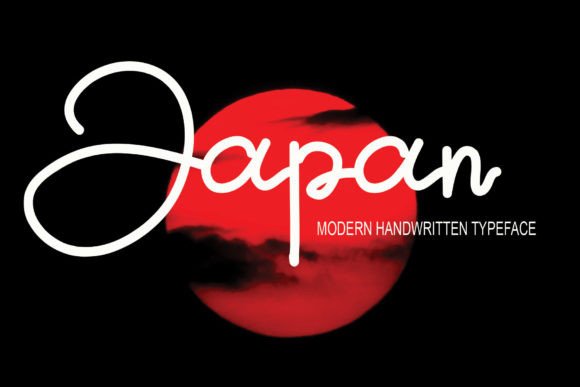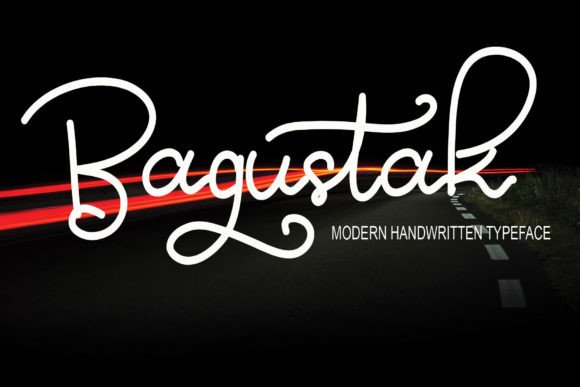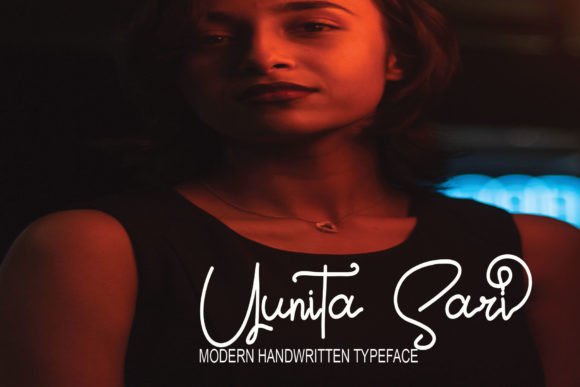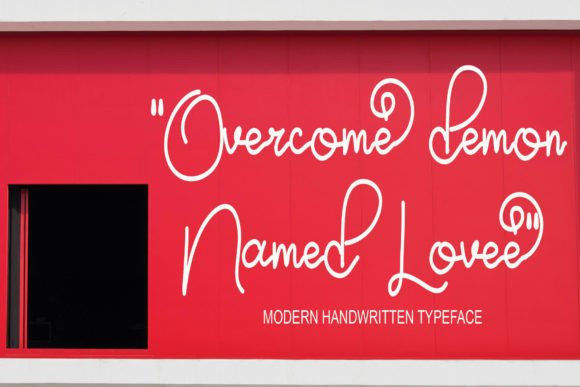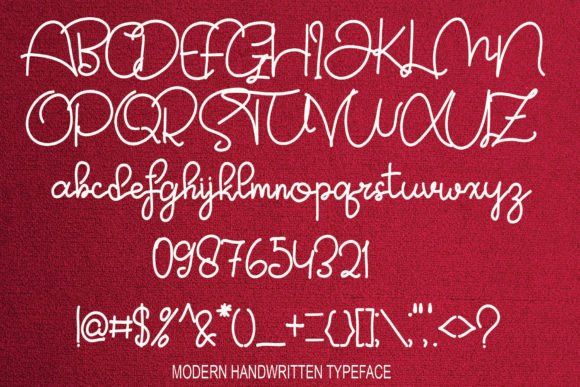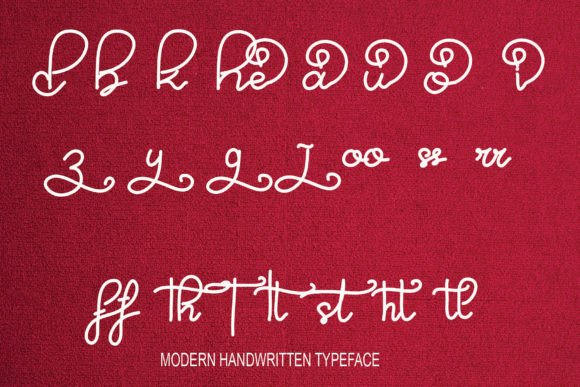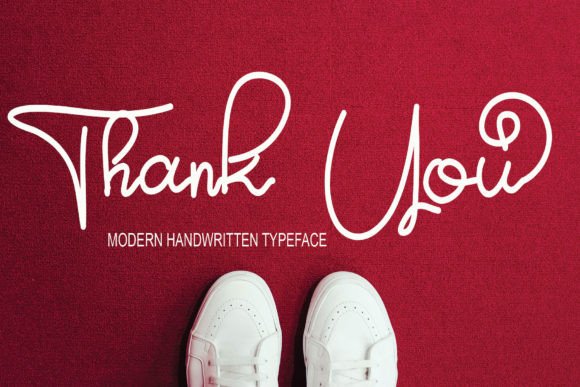
Matamu Font
About Matamu Font
“Matamu” is a script font that has been meticulously crafted by hand using a tablet. Despite its simplicity, this font exudes a sense of careful craftsmanship. Its versatility makes it suitable for a wide range of applications, including websites, wedding invitations, business cards, signatures, and various forms of advertising, whether for products or other purposes. “Matamu” manages to maintain a cool and stylish appearance, even with its straightforward and simple design.
The charm of “Matamu” lies in its simplicity and the attention to detail that went into its creation. It offers a clean and stylish aesthetic that can enhance the visual appeal of your projects while retaining an understated elegance.
One of the standout qualities of “Matamu” is its adaptability. Whether you’re using it for digital projects like websites or incorporating it into print materials such as wedding invitations and business cards, this font seamlessly fits into your creative vision.
Despite its simplicity, “Matamu” successfully strikes a balance between being cool and stylish. This makes it a versatile choice for various design needs where you want a font that is both straightforward and visually appealing.
In summary, “Matamu” is more than just a font; it’s a versatile and carefully crafted creative tool that can elevate the look of your projects with its simple yet stylish script. Whether you’re a professional designer seeking a font that combines simplicity with style or an enthusiast passionate about creating visually appealing content, “Matamu” is here to make your designs shine with a cool and stylish touch. Embrace the versatility of “Matamu,” and watch your creativity flourish with simplicity and elegance.